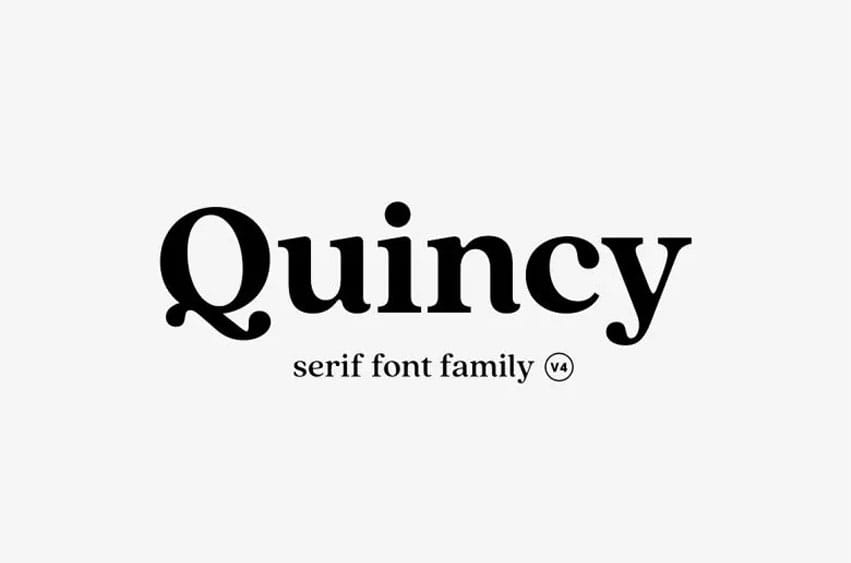
Quincy CF Font has been redesigned to version 4.3, which now has eight weights- an increase of three.
Thinking about each letter, they have been through an extensive refinement, rethinking, and rebalance, with improved kerning and language compliance, and an overall smoother flowing unified aspect.